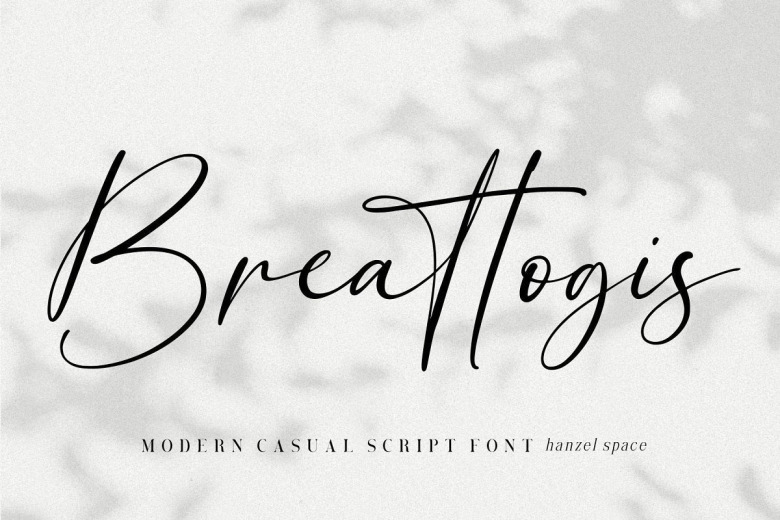
Breattogis Font
Breattogis Script Font modern calligraphy font with contemporary, sophisticated accents. It is perfect for branding, wedding invites, tagline, cards, maybe for label and logo.
Breattogis includes full set of gorgeous uppercase and lowercase letters, numerals, a large range of punctuation and ligatures. It expresses beauty of handwriting.